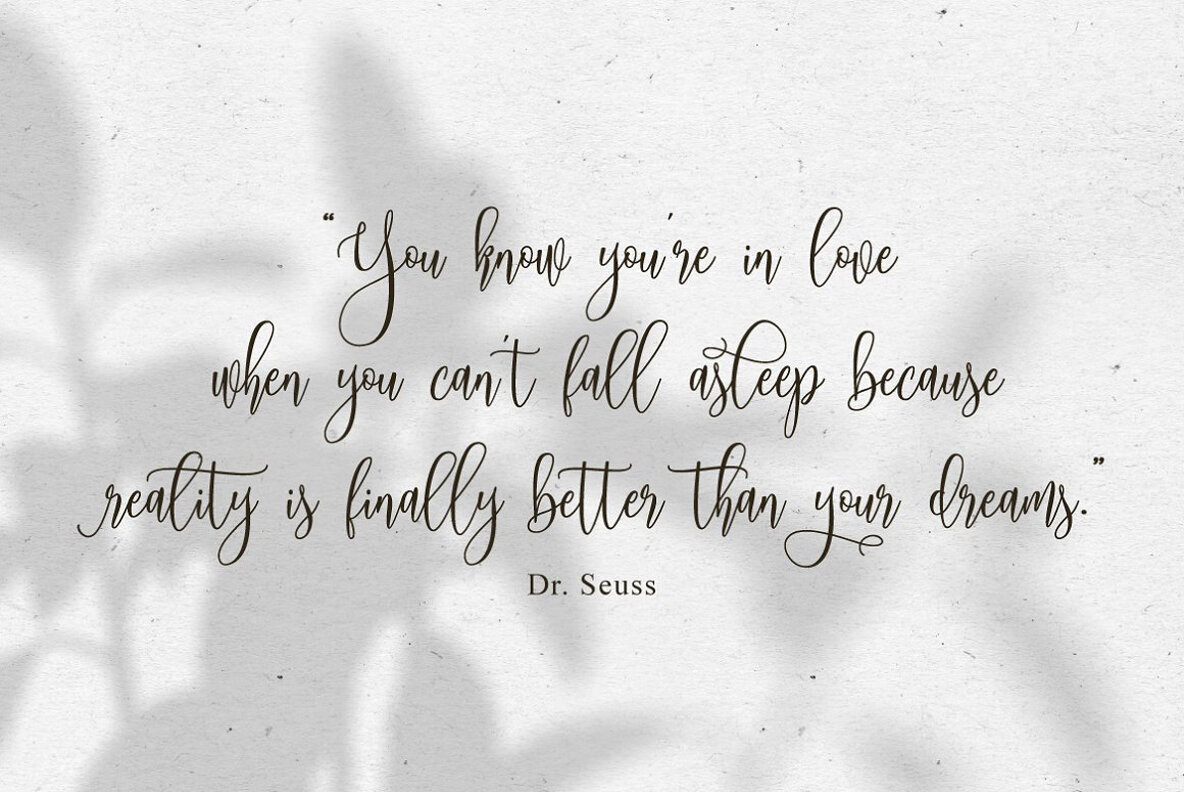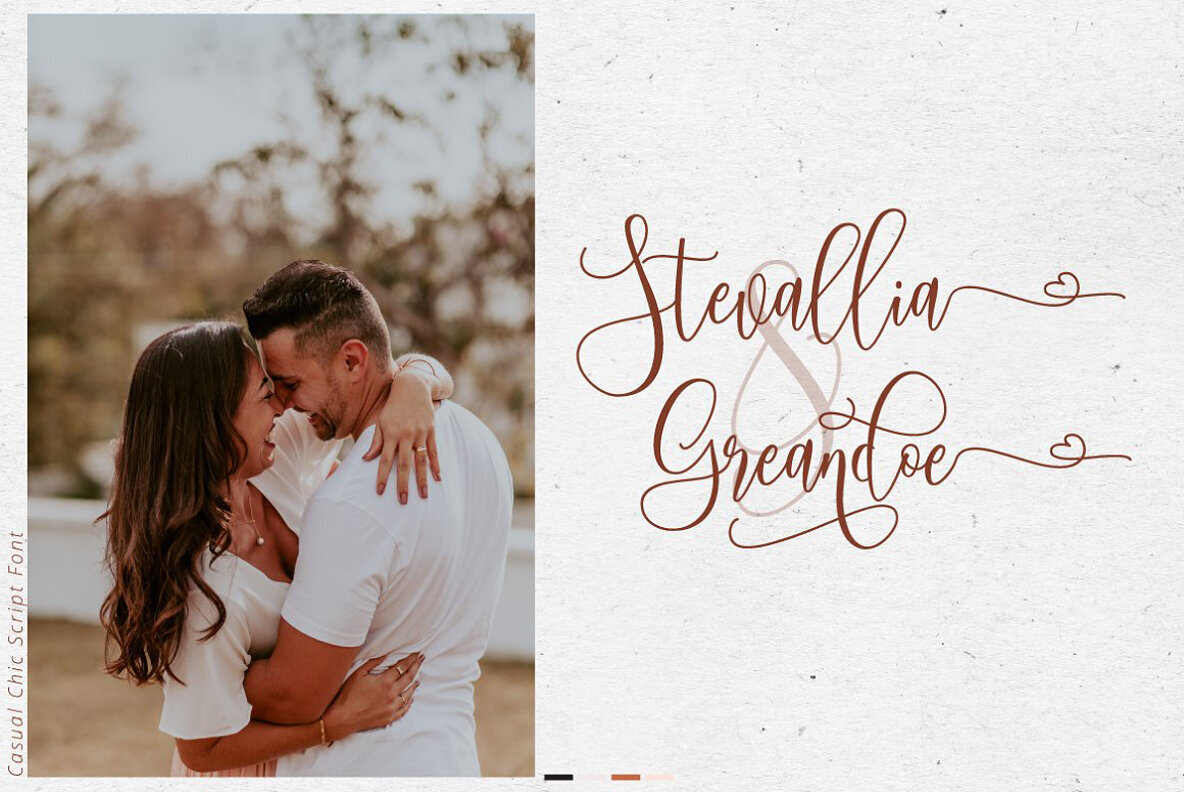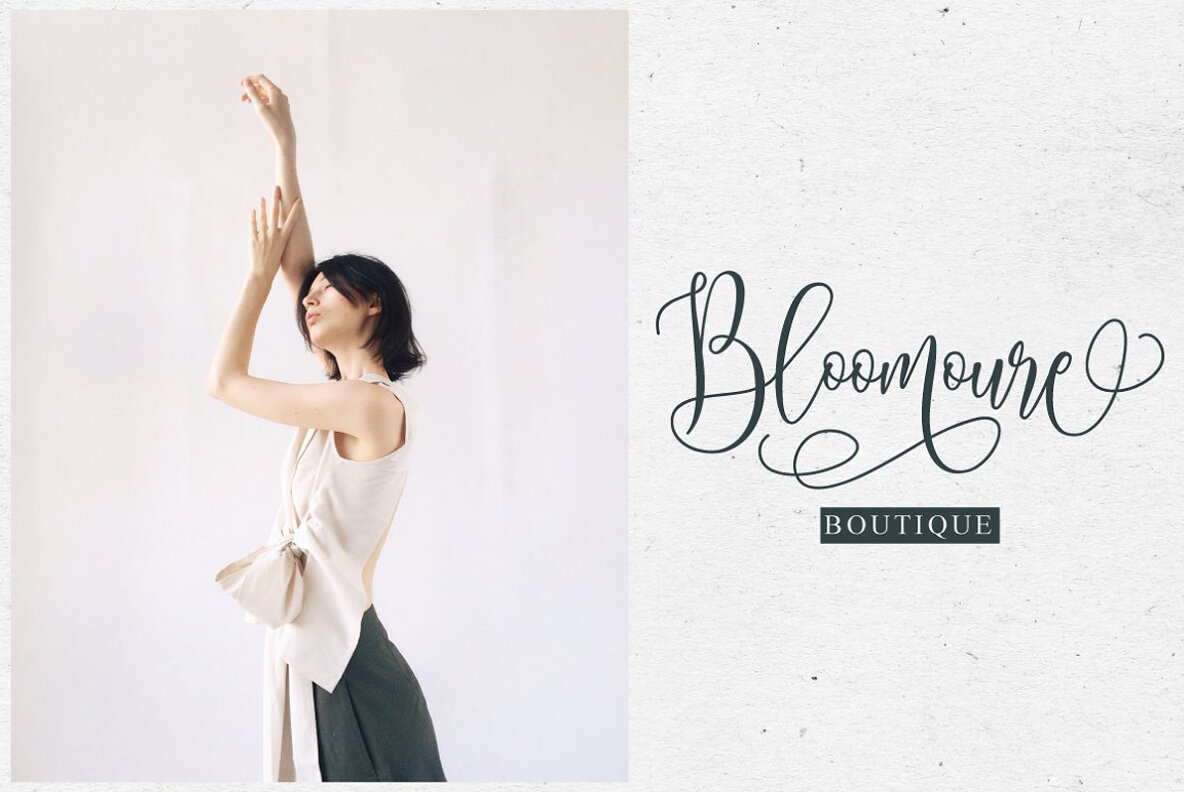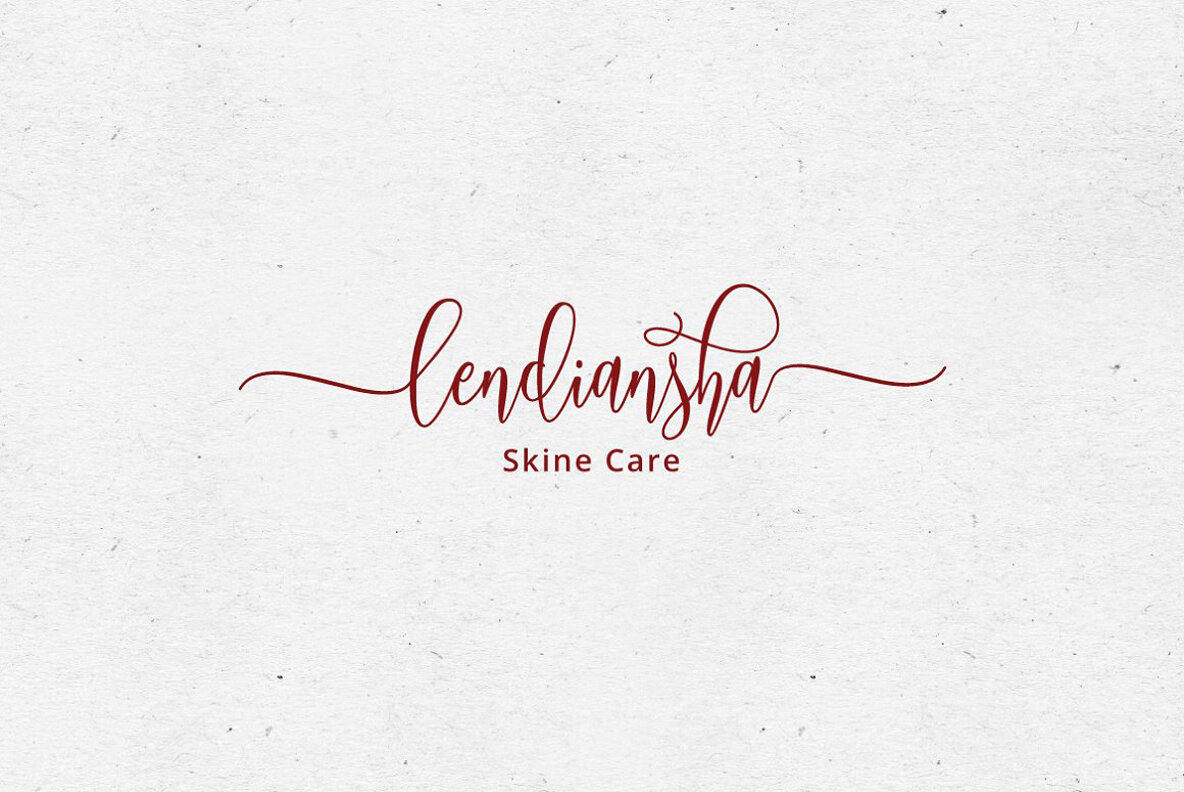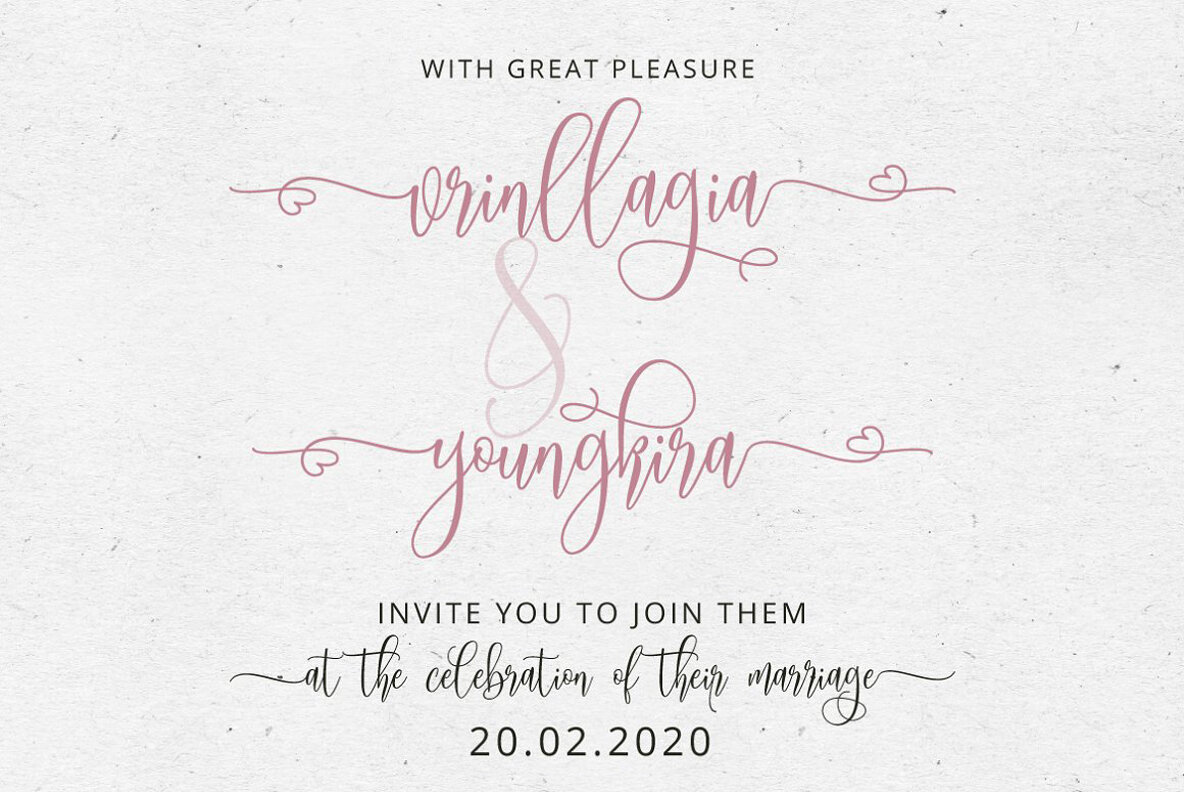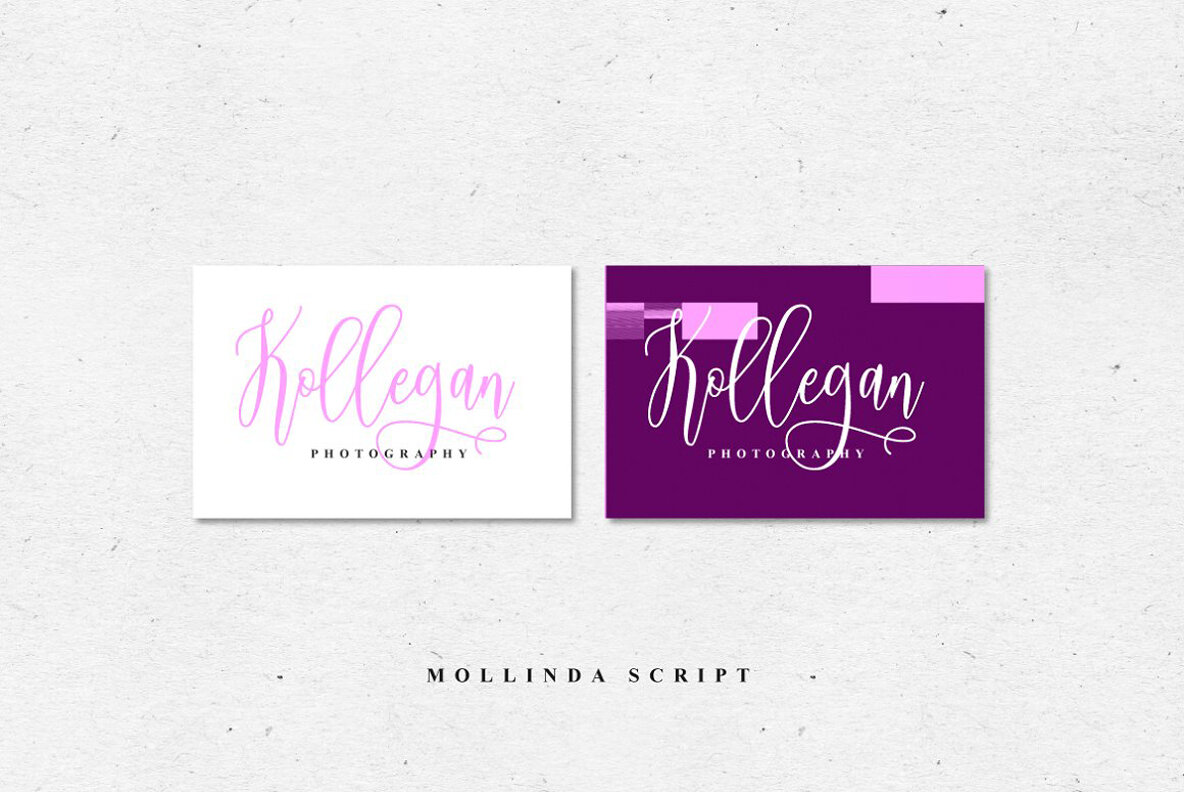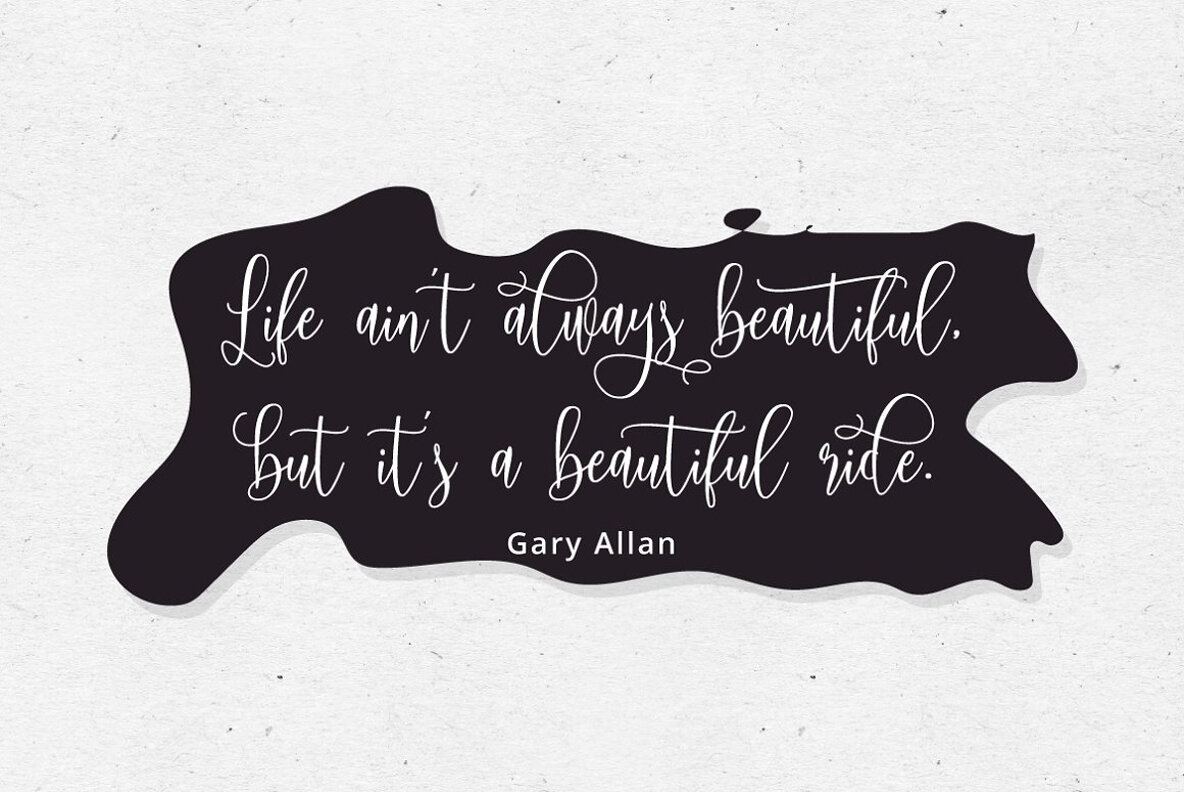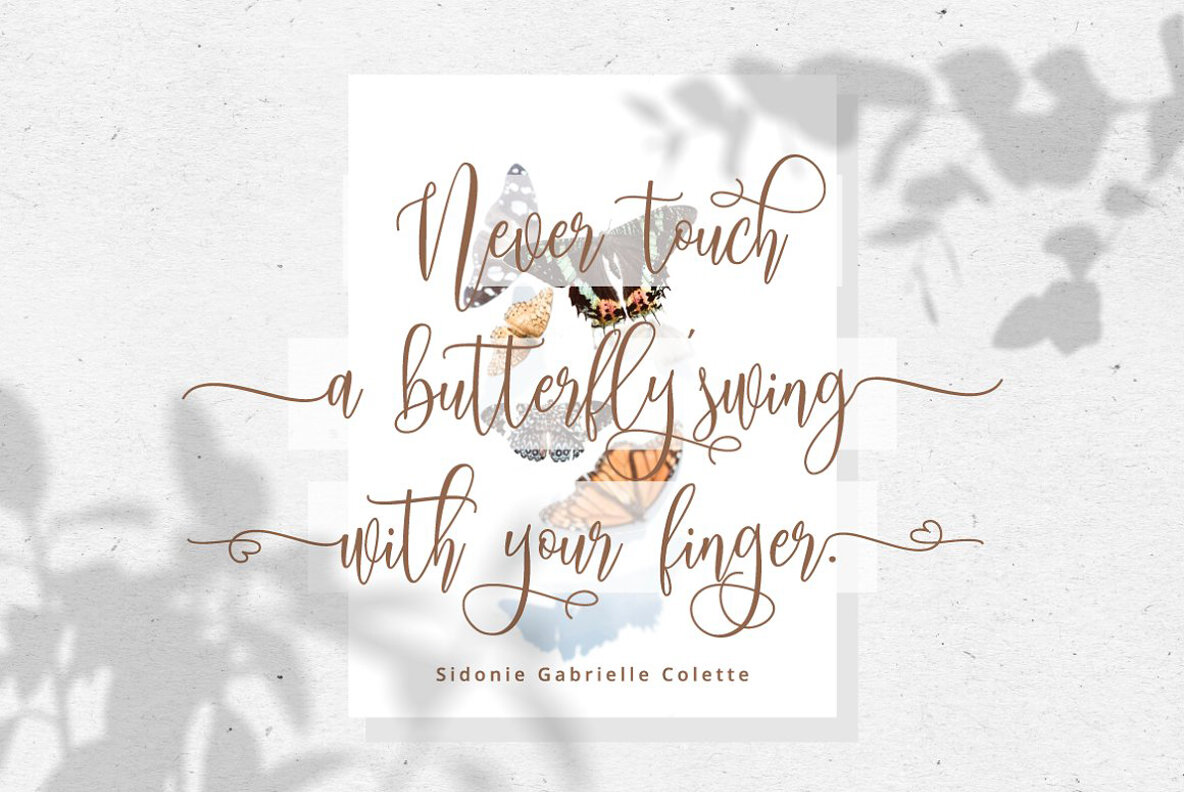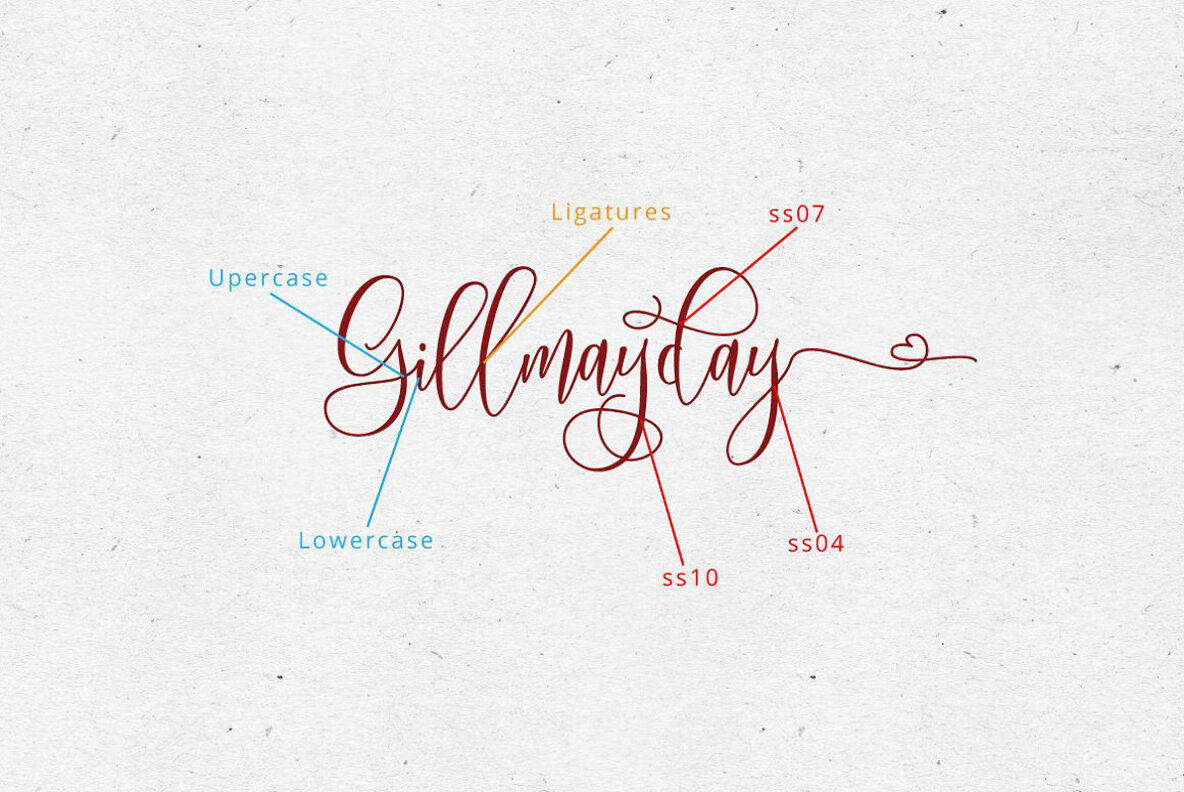
Mollinda Font
Mollinda Script
Mollinda Script by Mrletters offers a unique fusion of classic elegance and modern design. With its flowing, smooth lines and dynamic style, this font captures the essence of movement, making it an ideal choice for a range of applications including weddings, events, invitations, and more. Whether you're crafting custom addresses or designing packaging, Mollinda Script provides the tools you need for elegant and expressive typography.Mollinda Script: A Blend of Classic and Modern Typography